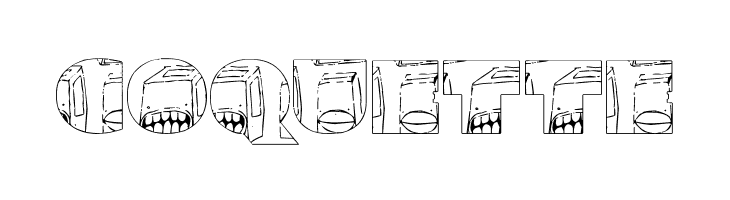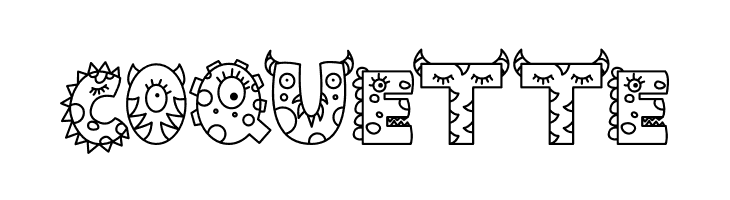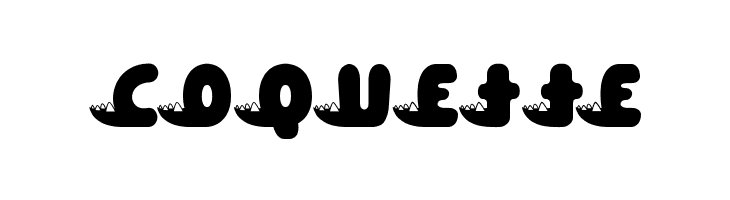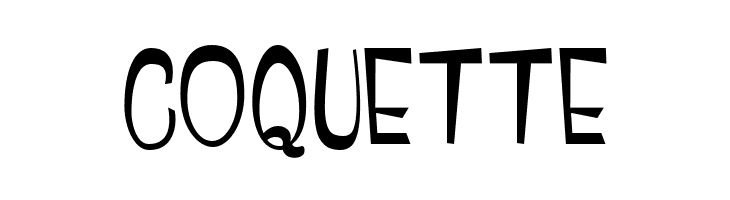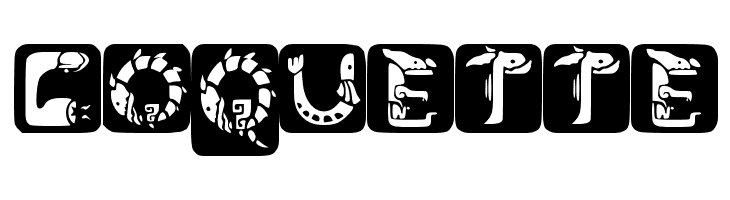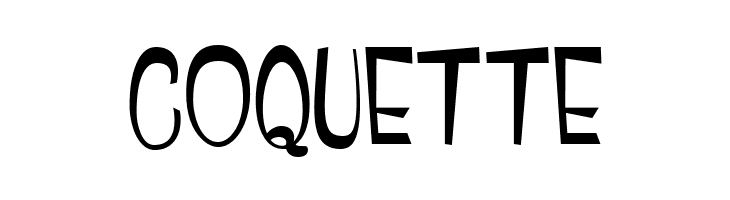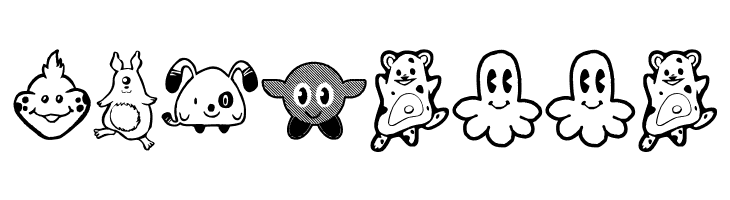
A playful, monster-themed font with bold, rounded characters and quirky details.
A bold, hand-drawn font with jagged, textured strokes and an edgy appearance.
A playful, monster-themed decorative font with quirky details.
A bold, decorative font with fantasy-themed elements and intricate designs.
A playful, bold font with irregular, hand-drawn shapes and whimsical charm.
A decorative, cartoon-style font made of cute monster illustrations.